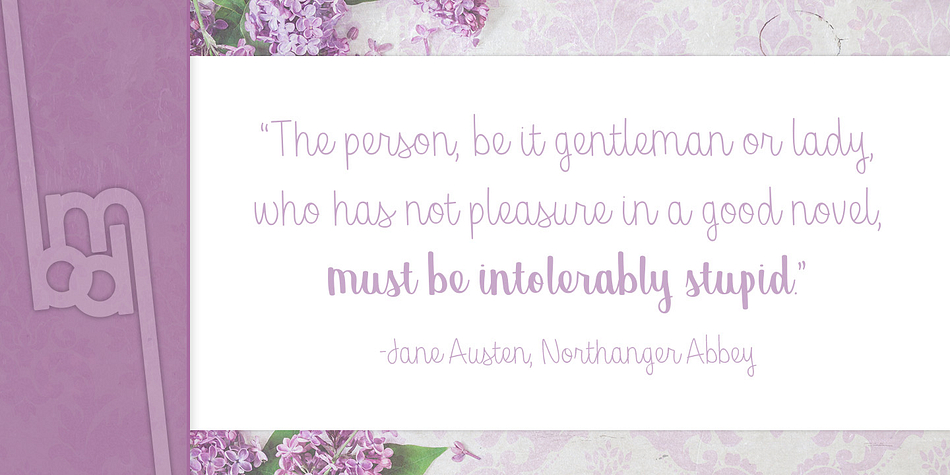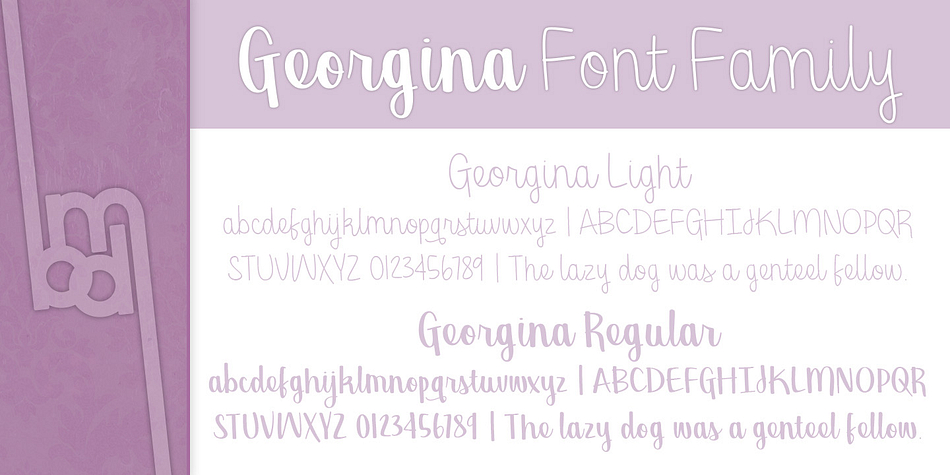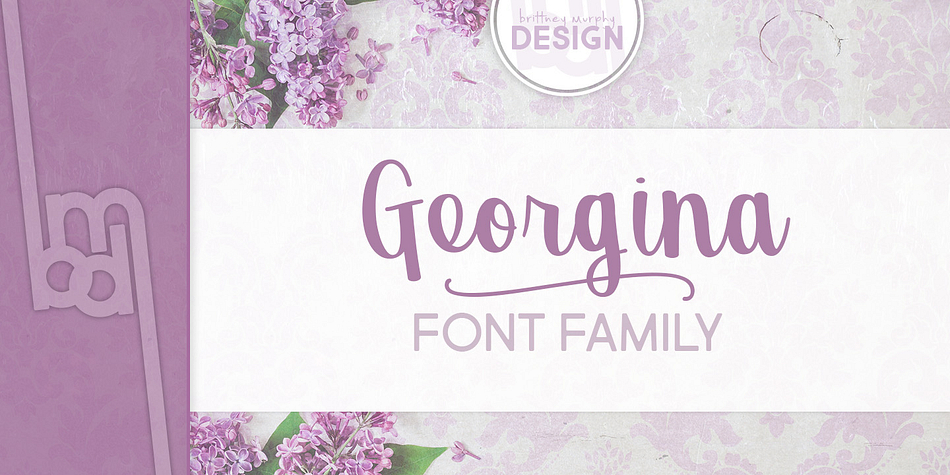
Georgina is a hand drawn and script font family. This typeface has two styles and was published by Brittney Murphy Design.
Georgina is an adorably chunky scrip. This font family also includes a thinner, light version. Both fonts contain 345 characters, including extended Latin characters.